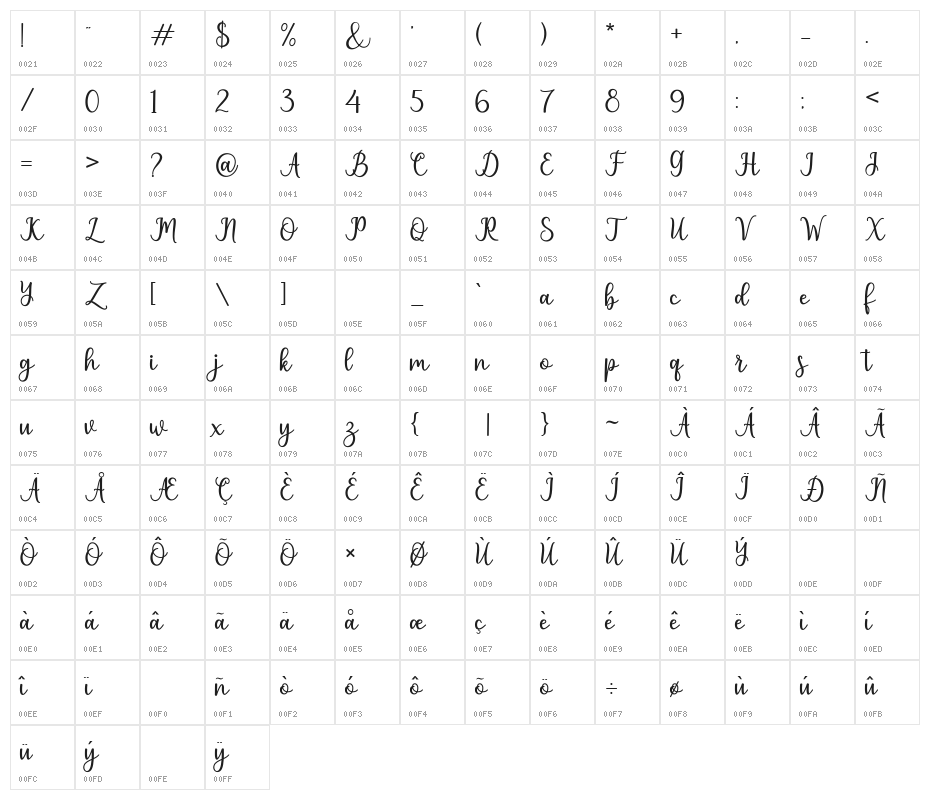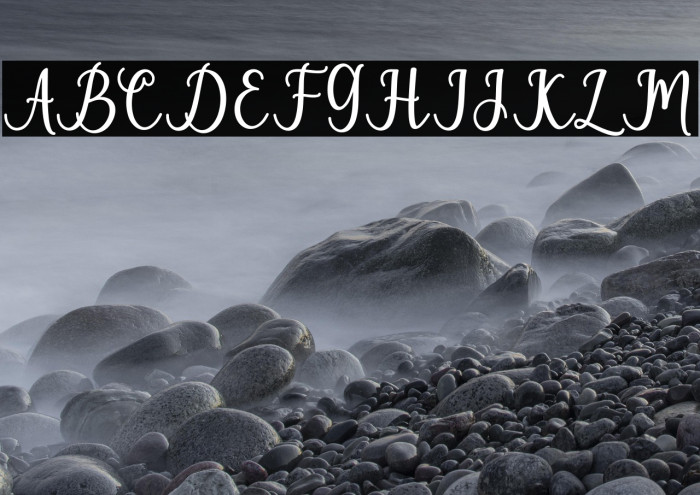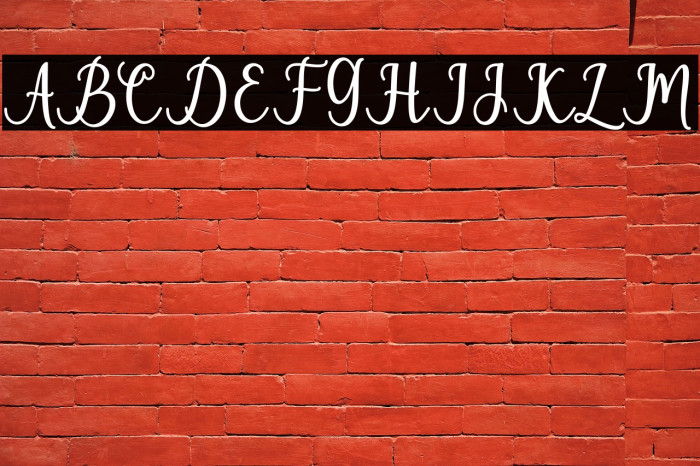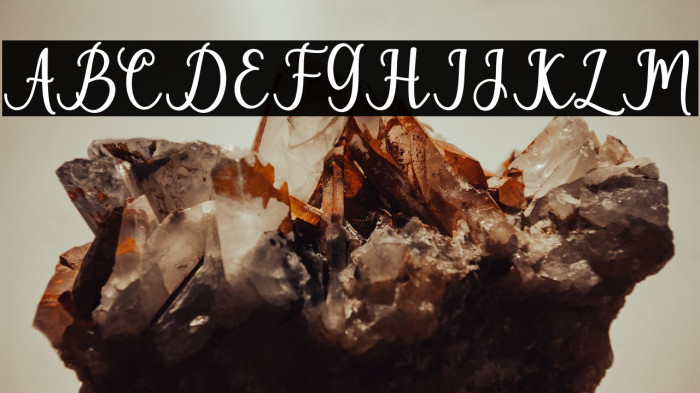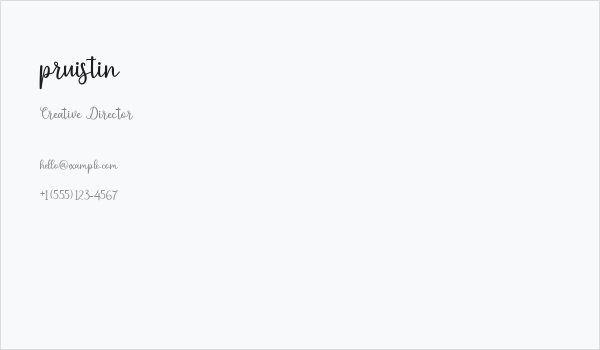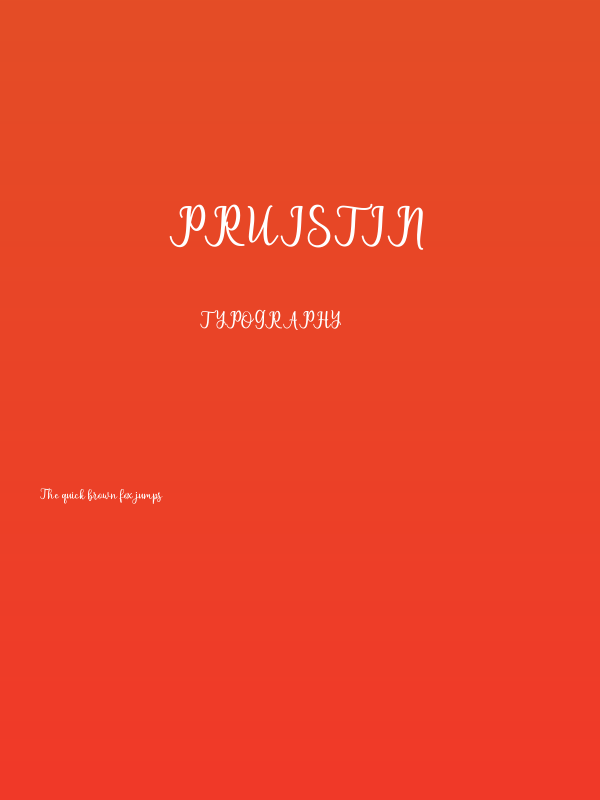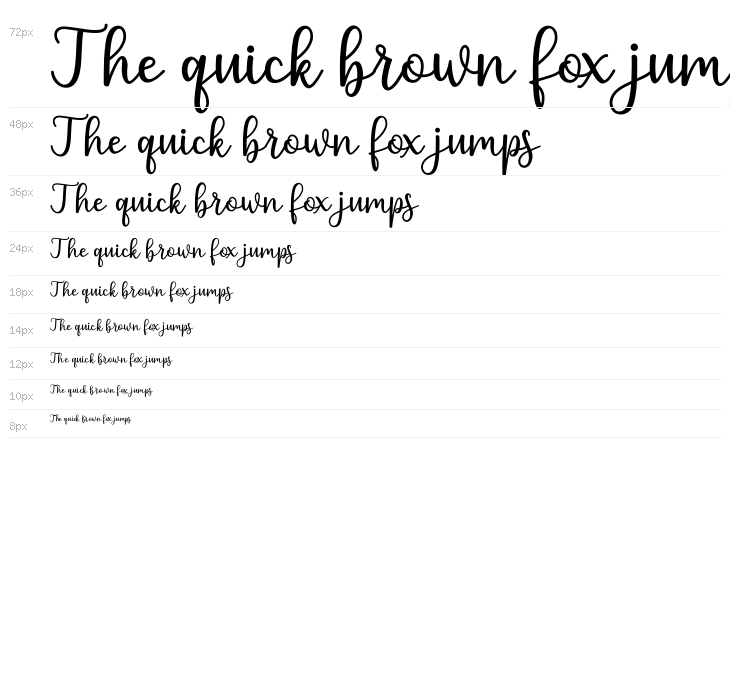
pruistin Font
pruistin Description
This font features a charming and elegant script style with a handwritten appearance. The uppercase letters are gracefully connected, while the lowercase letters exhibit a smooth flow with distinctive loops and curves. The numerals are consistent with the overall style, maintaining a playful yet sophisticated look. Special characters are thoughtfully designed to complement the alphabet, adding versatility to the font. The strokes are moderately thick, providing a balanced contrast that enhances readability while retaining an artistic flair.
| Overall Style | Elegant, Handwritten |
| Proposed Projects | Ideal for wedding invitations, greeting cards, branding projects, and elegant packaging designs. |